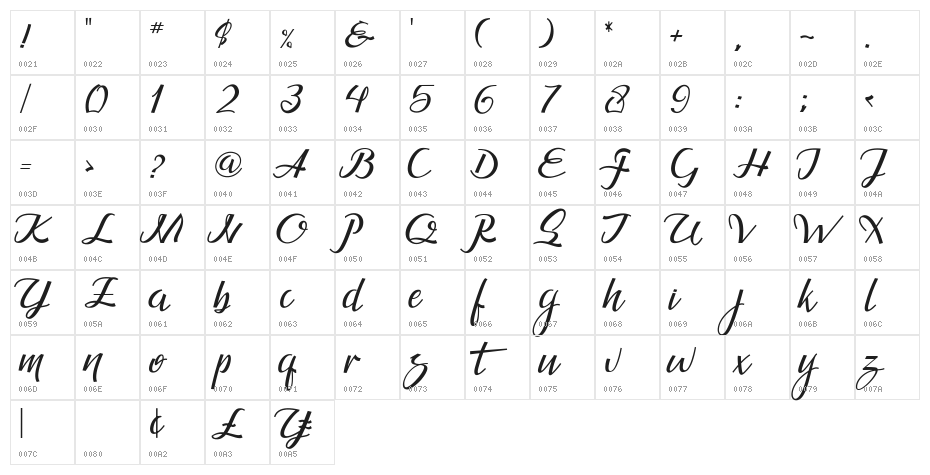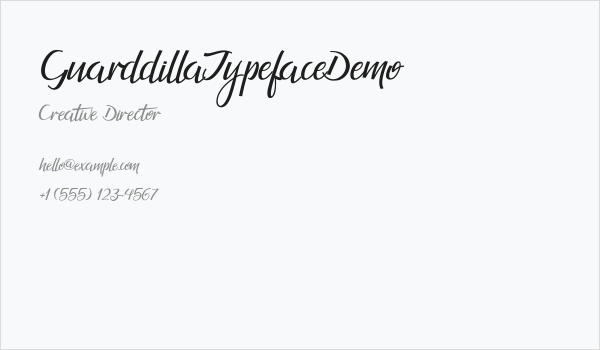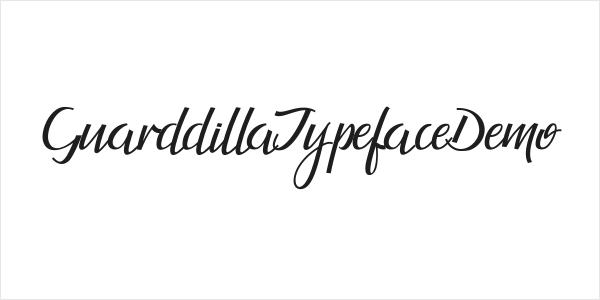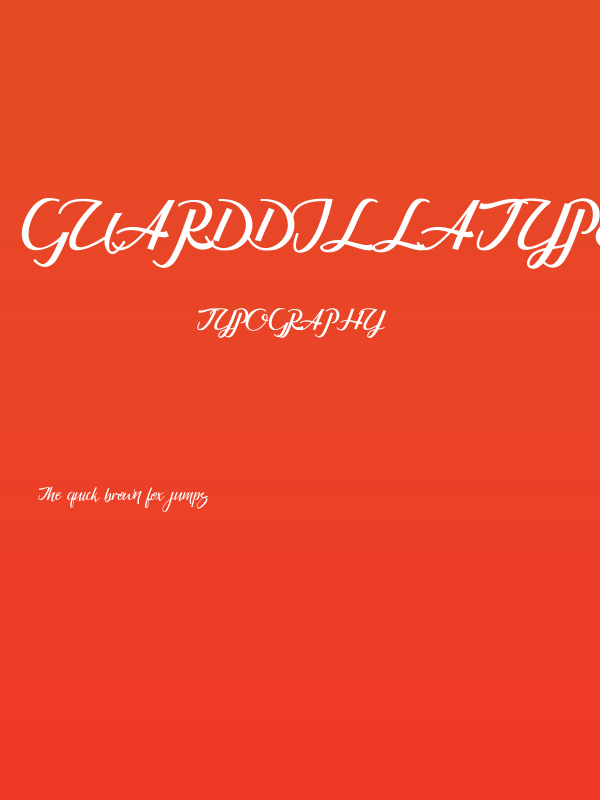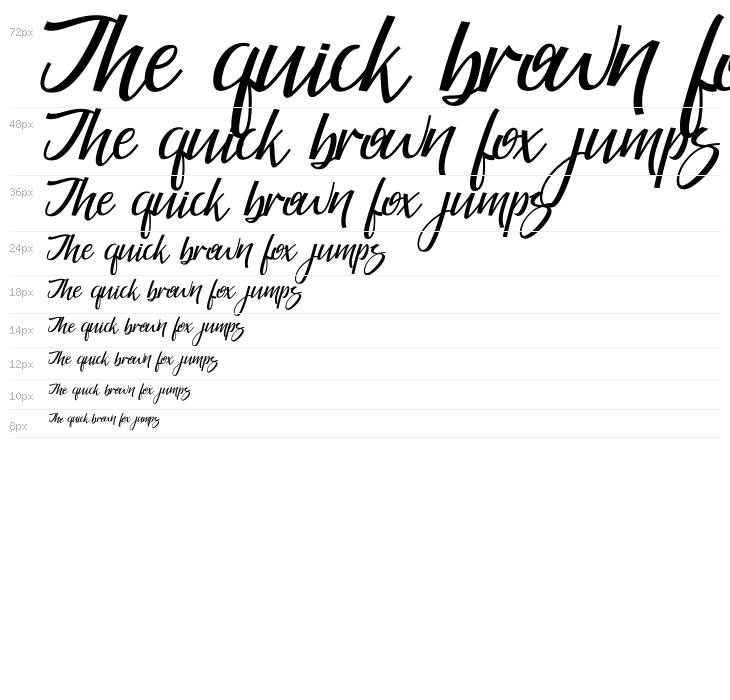
GuarddillaTypefaceDemo Font
GuarddillaTypefaceDemo Description
This typeface features a dynamic and flowing script style, characterized by its elegant, cursive letterforms. The uppercase letters exhibit a sophisticated flair with sweeping curves and pronounced loops, while the lowercase letters maintain a consistent fluidity, enhancing readability despite their decorative nature. The numerals are designed to match the script's graceful aesthetic, with each digit maintaining a harmonious balance between style and legibility. Special characters are seamlessly integrated, ensuring versatility in various design contexts. The overall impression is one of elegance and sophistication, making it suitable for projects that require a touch of class and artistic expression.
| Overall Style | Elegant, Artistic |
| Use Case | Logos, Invitations, Branding |
| Proposed Projects | Ideal for wedding invitations, luxury branding, elegant packaging, and artistic posters. |